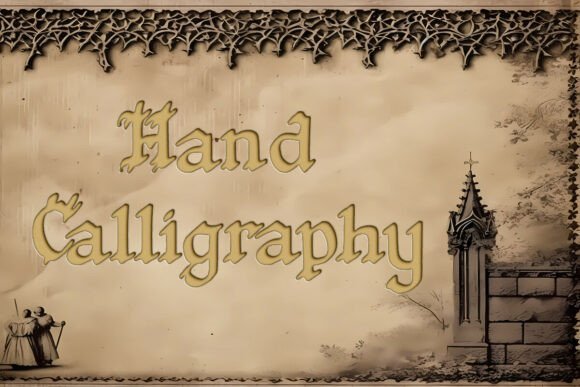
Unlocking the Art of Hand Calligraphy Font
Do you remember the feeling of excitement when you first picked up a pen and paper, and the world of creativity unfolded before you? For many designers, the thrill of bringing a concept to life lies in the fusion of art and typography. One such typography masterpiece that has captured the hearts of creatives is the Hand Calligraphy Font.
This versatile design toolkit is not just a font, but a tool that enables designers to breathe life into their projects. Whether you’re looking to add a touch of elegance to your branding initiatives, or lend a distinguished charm to magazine layouts, the Hand Calligraphy Font is the perfect companion. Its seamless integration with SVG files makes it an invaluable asset for designers, allowing them to create visually stunning designs for greeting cards, Cricut projects, and more.
- Unique, Hand-Drawn Design: This font features a beautiful, hand-drawn calligraphy style with intricate details and flourishes, perfect for adding a touch of elegance to your designs.
- Large Character Set: Includes a comprehensive character set, including uppercase and lowercase letters, numerals, punctuation marks, and special characters.
- Perfect for Creative Projects: Ideal for use in wedding invitations, certificates, art projects, and other creative endeavors where a unique, handcrafted look is desired.
Hand Calligraphy Font Review
Overall, I think the Hand Calligraphy Font has a lot of charm and potential, but it also has some areas where it falls short.
Here are the things that work well: ✨ The font is beautifully rendered and has a high level of detail. The brush strokes are smooth and natural-looking, which is perfect for creating elegant and sophisticated designs. ✨ The font also has a wide range of weights and styles, which makes it easy to customize and adapt to different design needs.
However, there are some limitations: ⚠️ The font is quite large and may not be suitable for smaller text sizes or web design. ⚠️ Additionally, the font may not be suitable for body text or paragraphs, as it can be quite distracting and overwhelming. ⚠️ Finally, the font may require some manual adjustment to get the spacing and alignment just right, which can be time-consuming.
Overall, I would recommend the Hand Calligraphy Font for designs where you want to add a touch of elegance and sophistication. However, it’s not a one-size-fits-all solution and may require some extra effort and patience to use effectively.
Here are some specific use cases where the font excels:
- Special occasion cards and gift tags
- High-end product packaging and branding
For the best results, use the Hand Calligraphy Font on a high-resolution document or image.
Combine the Hand Calligraphy Font with other design elements, such as illustrations or graphics, to create a unique and eye-catching design.
Hand Calligraphy Font is perfect for:
Business cards and marketing materials
Artistic projects and creative endeavors
Alternatives to Hand Calligraphy Font
Crimson Text is a classic serif font designed to mimic the look of traditional calligraphy. It’s perfect for use in formal invitations, wedding stationery, and other high-end designs. Compared to Hand Calligraphy Font, Crimson Text has a more elegant and refined feel, making it ideal for sophisticated projects.
Carolyna Pro is a modern script font that offers a more relaxed and casual alternative to Hand Calligraphy Font. It’s great for use in branding, advertising, and editorial designs where a touch of personality is needed. While Hand Calligraphy Font has a more traditional feel, Carolyna Pro is more versatile and can be used in a variety of settings.